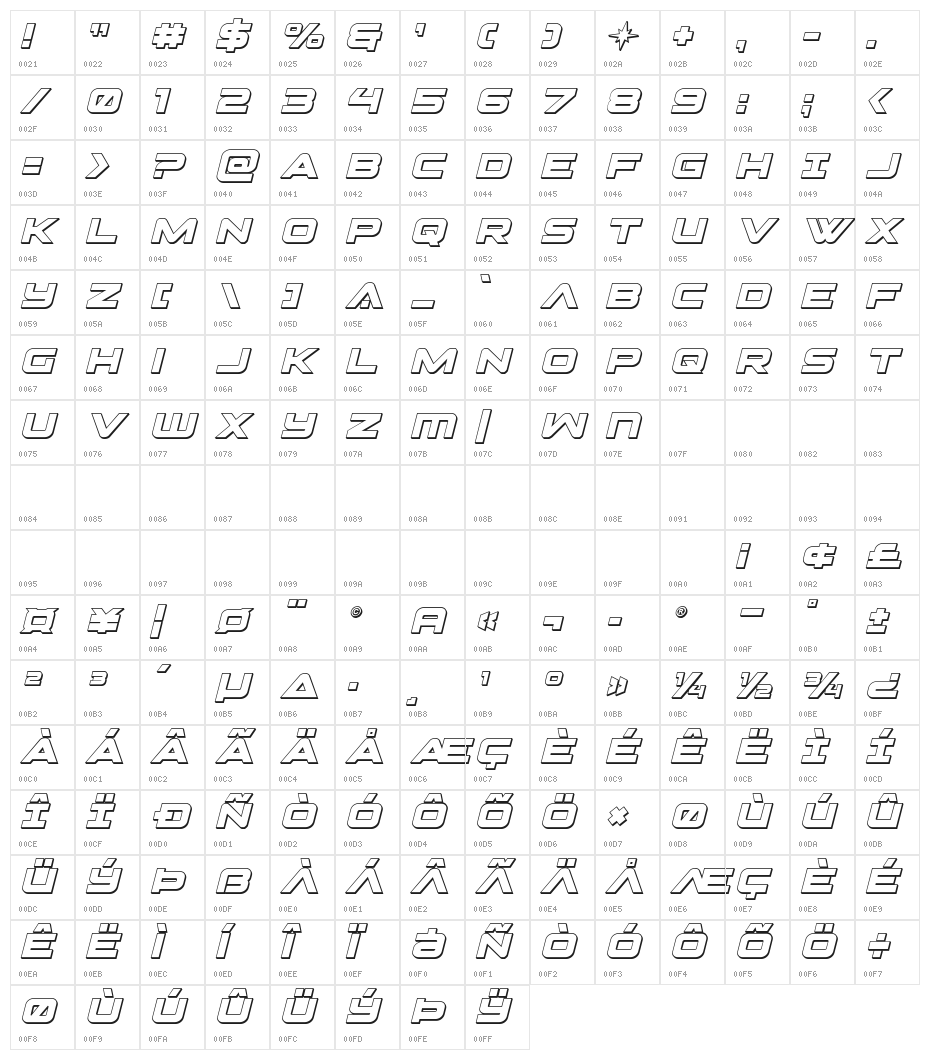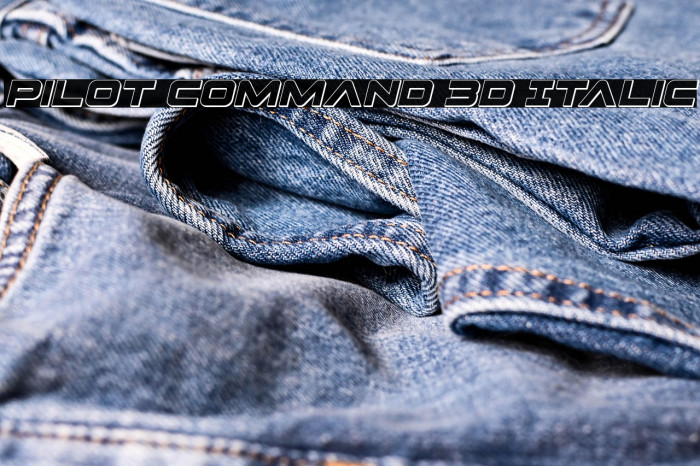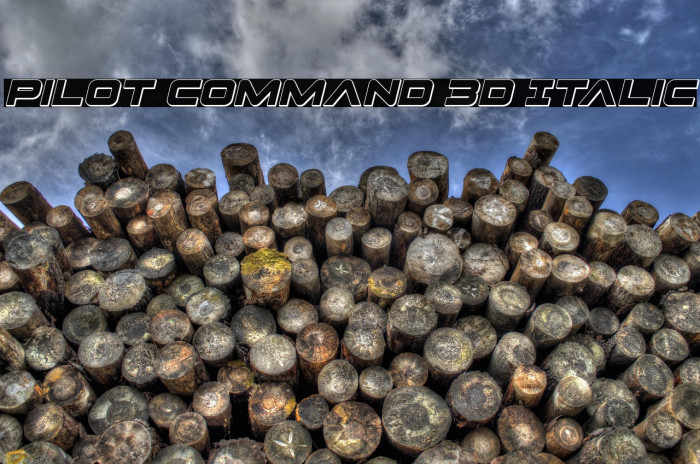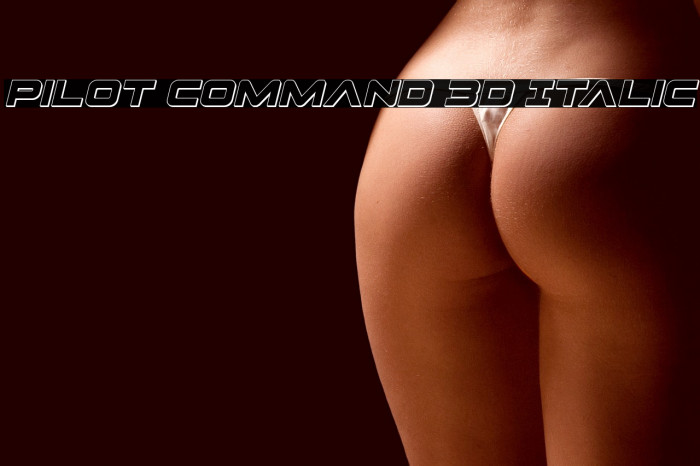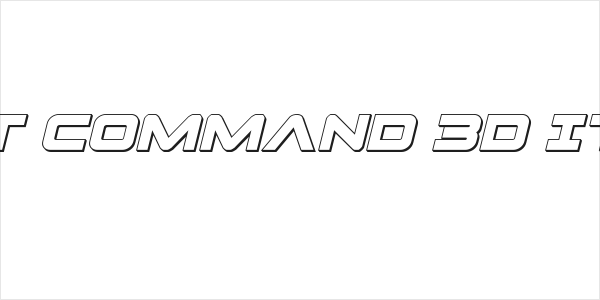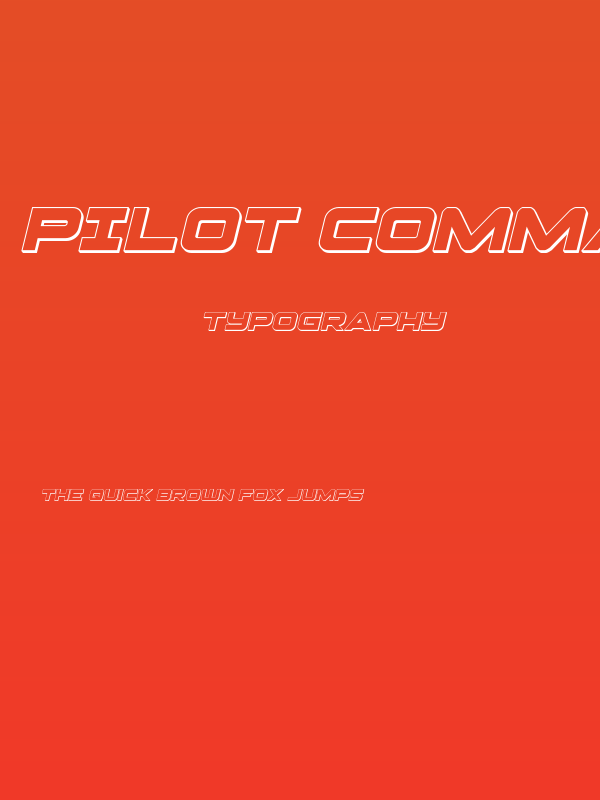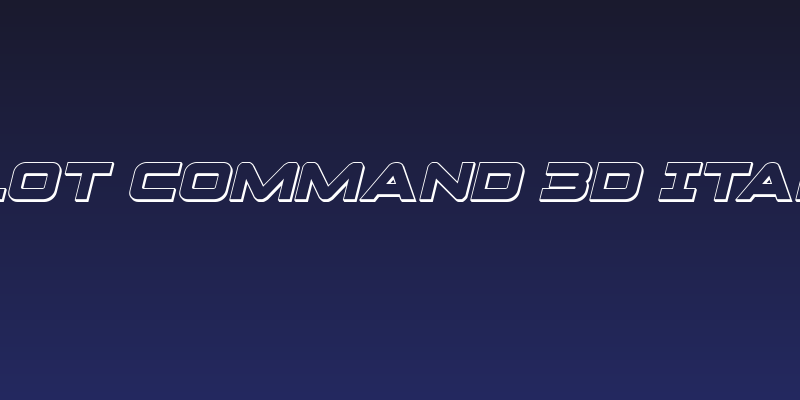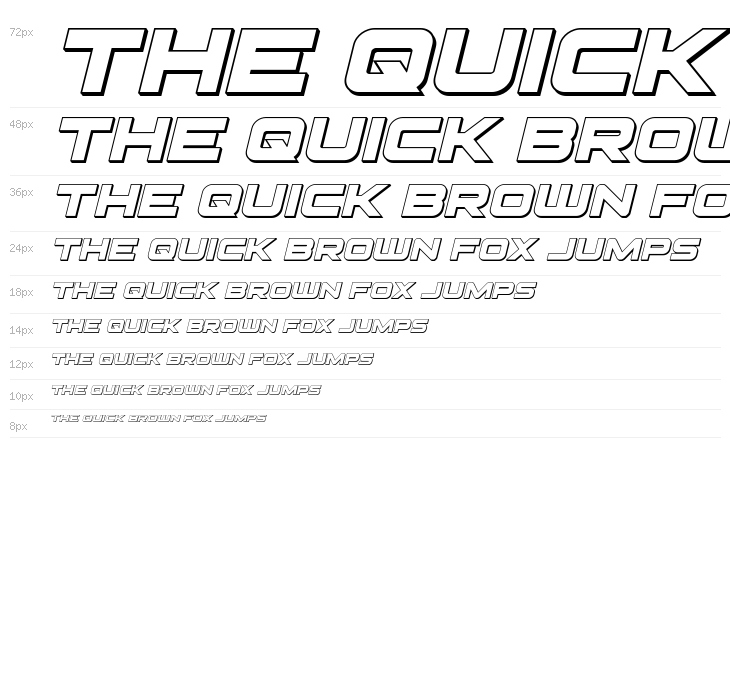
Pilot Command 3D Italic Font
Pilot Command 3D Italic Description
This font features a bold, three-dimensional design with an italic slant, giving it a dynamic and futuristic appearance. The characters are outlined, creating a hollow effect that enhances the 3D illusion. The uppercase letters are angular and geometric, while the lowercase letters maintain a consistent style, ensuring readability. Numbers and special characters follow the same design principles, making them cohesive with the alphabet. This font is ideal for projects that require a modern and eye-catching look, such as technology branding or sci-fi themed designs.
| Proposed Projects | Ideal for technology branding, sci-fi themed designs, video game titles, and futuristic posters. |